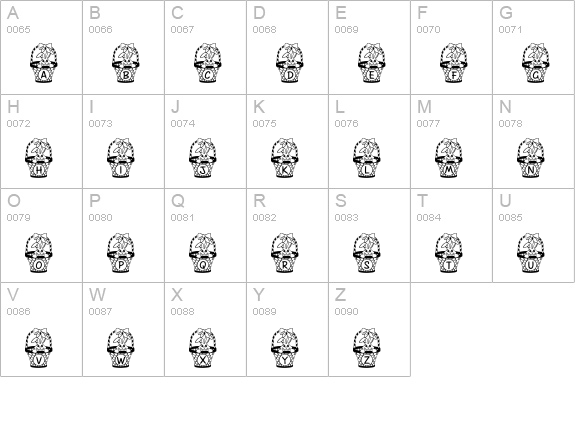
RMBaskbn font is a stunning display font that effortlessly combines elegance and modernity. Its sleek and sophisticated design makes it perfect for a wide range of creative projects, including logos, headlines, posters, and more. With its clean lines and unique letterforms, RMBaskbn font stands out from the crowd and adds a touch of class to any design. Whether you're designing for print or digital media, this font is sure to make a lasting impression. One of the best things about RMBaskbn font is that it is available for free download at FontsMarket.com. That's right, you can get your hands on this incredible font without spending a dime. So why wait? Head over to FontsMarket.com and start using RMBaskbn font in your next project today. Don't miss out on this opportunity to enhance your designs with RMBaskbn font. Download it for free at FontsMarket.com and let your creativity soar.